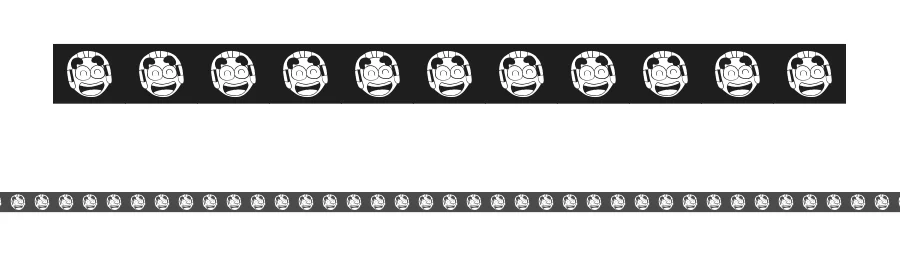
About Penbytes Tile Font
Penbytes Tile Font is a decorative font that shines as a display or heading face. Pair it with a clean sans-serif or serif font for body text β the contrast creates a clear hierarchy while the two styles stay balanced and easy to read.
Penbytes Tile Font
by Maria Osborn